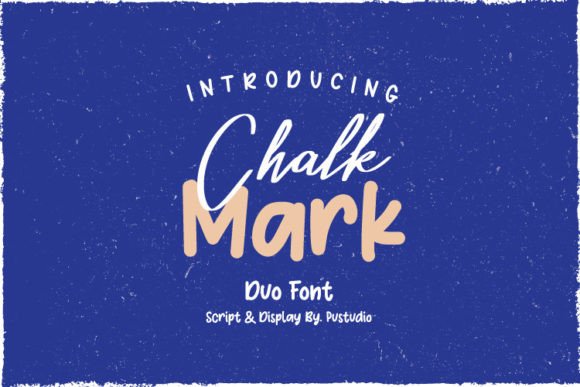
Introducing Chalk Mark Duo Font - a vibrant and enchanting display font duo that will transform your creative visions into remarkable realities. Dive into the world of playful typography, where imagination bursts forth with every stroke.
With its captivating handwritten characters, Chalk Mark Duo is not just a font; it's an artistic adventure. Its charming strokes dance across the page, inviting you to witness a delightful blend of whimsy and sophistication. Whether you're crafting eye-catching logos, designing vibrant headlines, or adding a personal touch to your social media posts, Chalk Mark Duo will elevate your designs to new heights.
Step into a world where creativity knows no bounds, where the ordinary becomes extraordinary. Chalk Mark Duo's playful nature makes it the perfect choice for adding a touch of whimsy to your projects. Its versatility shines through whether you're designing invitations, creating custom t-shirts, or crafting memorable branding materials.
Embrace the allure of Chalk Mark Duo and let your imagination soar. See your words come alive with a vibrant persona that commands attention and sparks joy. With every letter you type, you'll feel the magic of creativity flowing through your fingertips.
Unleash the boundless potential of Chalk Mark Duo and embark on a typographic journey like no other. Its user-friendly design makes it perfect for both seasoned designers and those just starting their creative adventure. Discover the joy of effortless customization and elevate your projects to new heights.